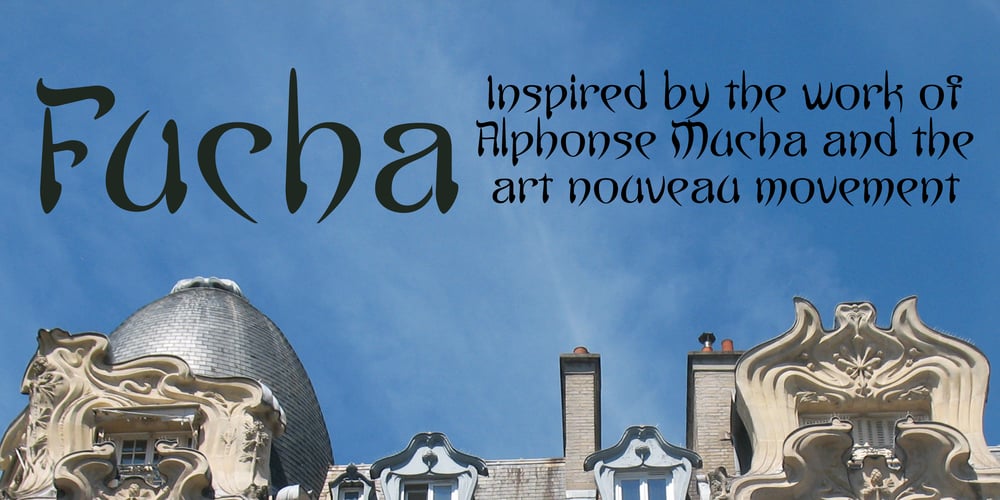
Fucha Font Family was designed by Jackson Amaral and published by Oliveira 37. Fucha contains 1 styles and family package options. Fucha is a typography inspired by the Art Nouveau movement, and by the lettering of Alphonse Mucha’s posters. Fucha is a decorative display font in the Art Nouveau style that originated over a century ago. The style showcases in its elaborate, lightweight curves a bold approach to organic lines and luxurious decor.A complete repertoire of Latin Extended-A characters is contained in the font. Supporting 219 Latin languages, which are spoken in different 212 countries.